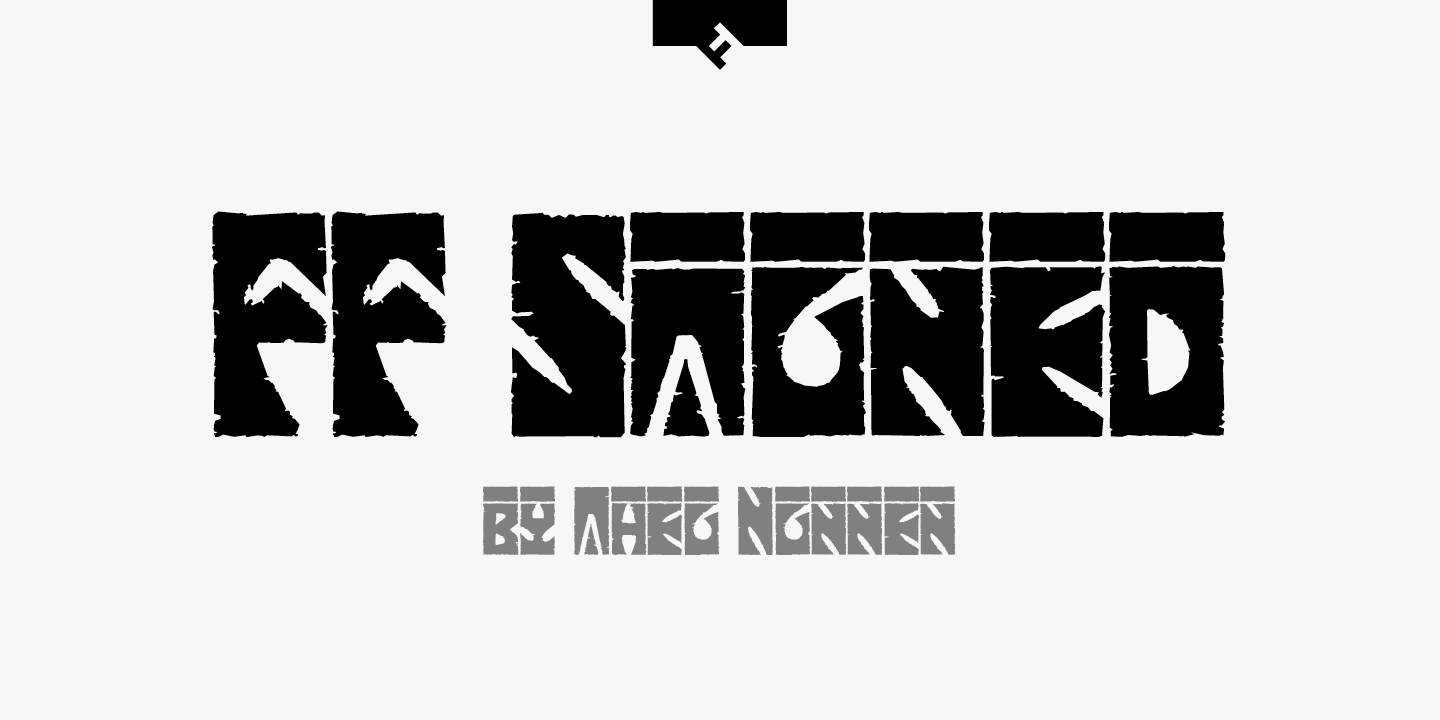
FF Stoned Font is perfect for rock band merchandise, grunge music festival posters, alternative concert branding, vintage record store signage, indie music album covers, underground club advertisements, rebellious fashion labels, skateboarding brand identities, punk rock venue graphics, and counterculture lifestyle products. This distressed, rebellious typeface excels in applications where rock and roll attitude, alternative culture, and anti-establishment spirit need to be communicated with authentic grunge energy and underground credibility.
FF Stoned Font is exciting because it perfectly captures the raw, unfiltered essence of rock and roll rebellion with every deliberately weathered letterform. Its distressed appearance and gritty texture details create an immediate connection to underground music culture and alternative lifestyle movements. The font's distinctive worn characteristics and rebellious construction make it particularly compelling for brands seeking to communicate authenticity, nonconformity, and genuine alternative values in their edgy marketing communications and underground brand narratives.
The FF Stoned Font family includes various grunge styles: Regular, Heavy, Distressed, and Outline versions, each maintaining the characteristic rock aesthetic while offering different levels of rebellion intensity and underground visual impact. These variations provide designers with comprehensive tools for creating layered alternative compositions and achieving perfect balance between authentic grunge culture and contemporary presentation.
For designers creating alternative brands or music-focused projects, FF Stoned Font Free Download delivers authentic rock and roll character with professional design functionality. Whether you're developing music venue identities, alternative fashion marketing materials, or underground entertainment branding, this rebellious typeface provides the perfect foundation for conveying rock credibility and alternative culture appeal. The font's extensive character set includes rock symbols and decorative elements that enhance grunge design compositions and rebellious brand storytelling with genuine underground authenticity.